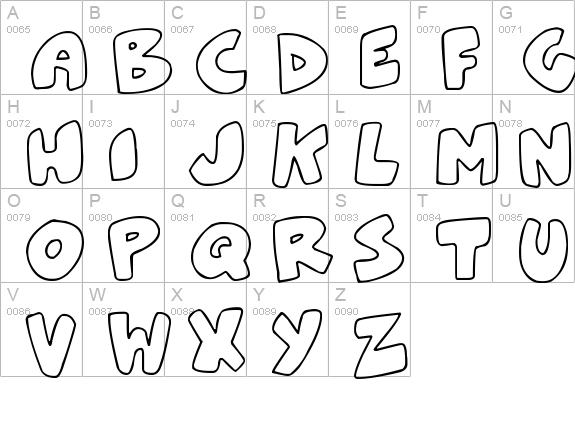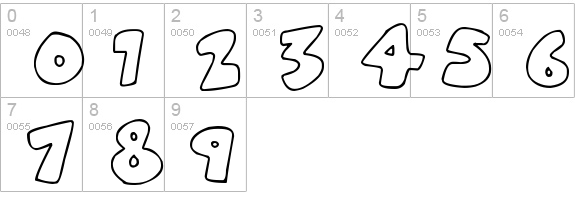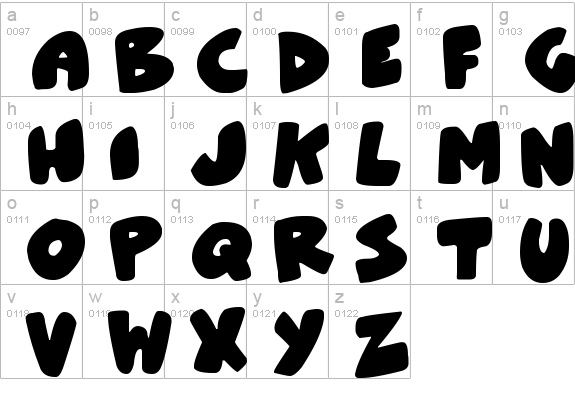
Zebra Blobs Font Details
Zebra Blobs is a free for personal use font in the Fancy > Comic category, designed by Darrell Flood. It has been downloaded 258 times and is available for Windows, Mac and Linux.
Zebra Blobs
Zebra Blobs font is a playful and whimsical typeface that will add a touch of fun to any design project. The unique blob-like shapes of the letters give this font a distinctive and eye-catching look. Whether you're creating posters, invitations, or social media graphics, Zebra Blobs font will make your text stand out in a creative way.